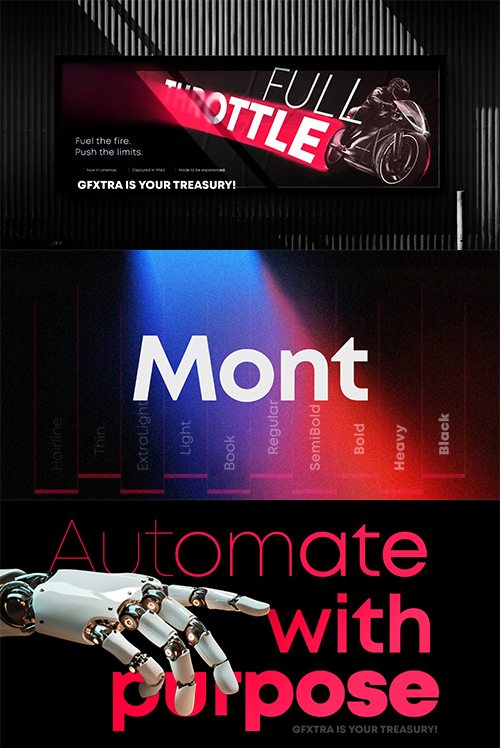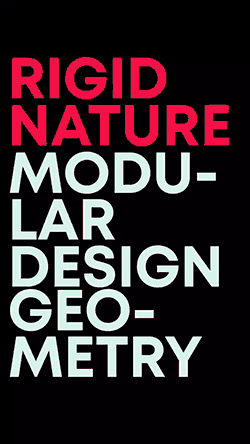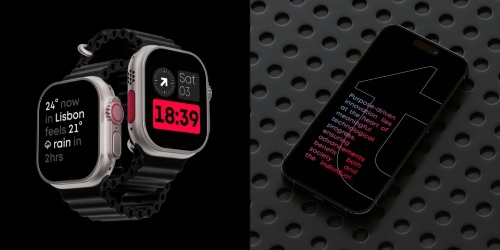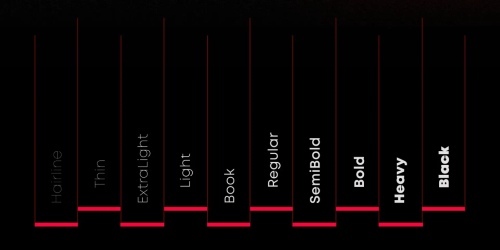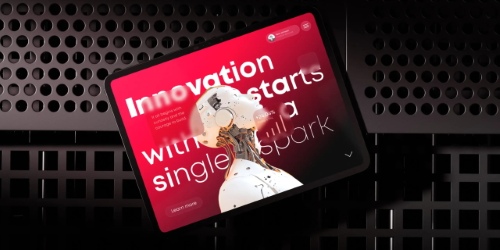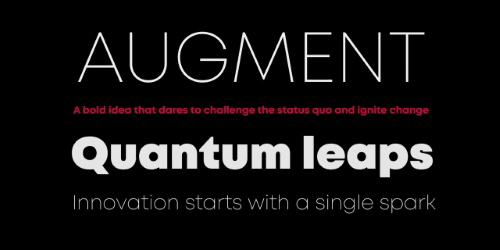
Mont - 22 Static Styles
- Mont is a modern sans-serif typeface born from the pursuit of geometric clarity and minimal elegance. Built from the basics—circle, square, triangle—it embraces sharp details like the pointed apexes of "M" and "t" while preserving soft, circular proportions in characters like “o”, “a”, and “e”. Its construction was driven by the needs of contemporary typography across editorial, UI, and branding. Mont isn’t just designed to look good—it’s built to perform. Whether in print or on screen, this typeface fits effortlessly into any brand narrative. And with the 2025 update, we’ve taken it even further—adding Variable Fonts and improved screen hinting for sharper rendering and smoother web performance.